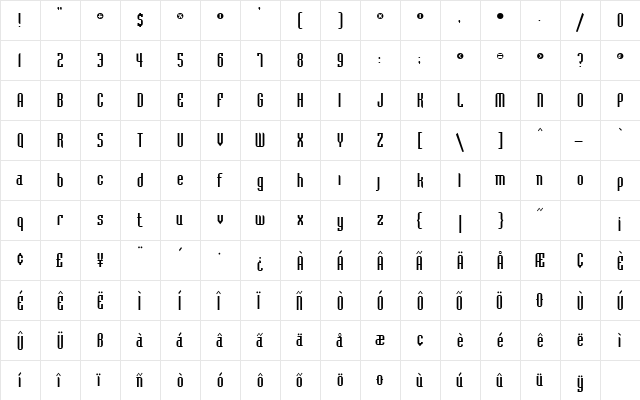
Schilling Regular
Design Context for Schilling Typeface
Schilling takes a measured approach to typography — its balanced proportions and neutral character make it a reliable workhorse for both digital and print work.